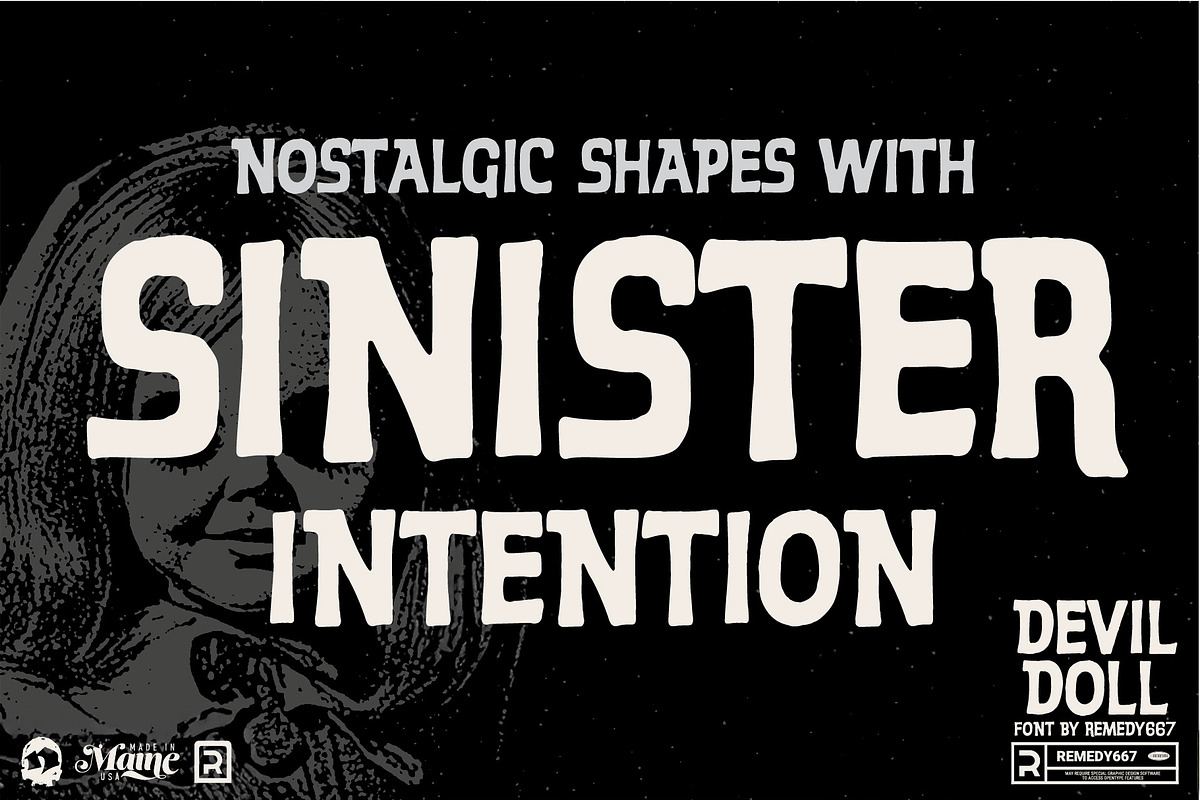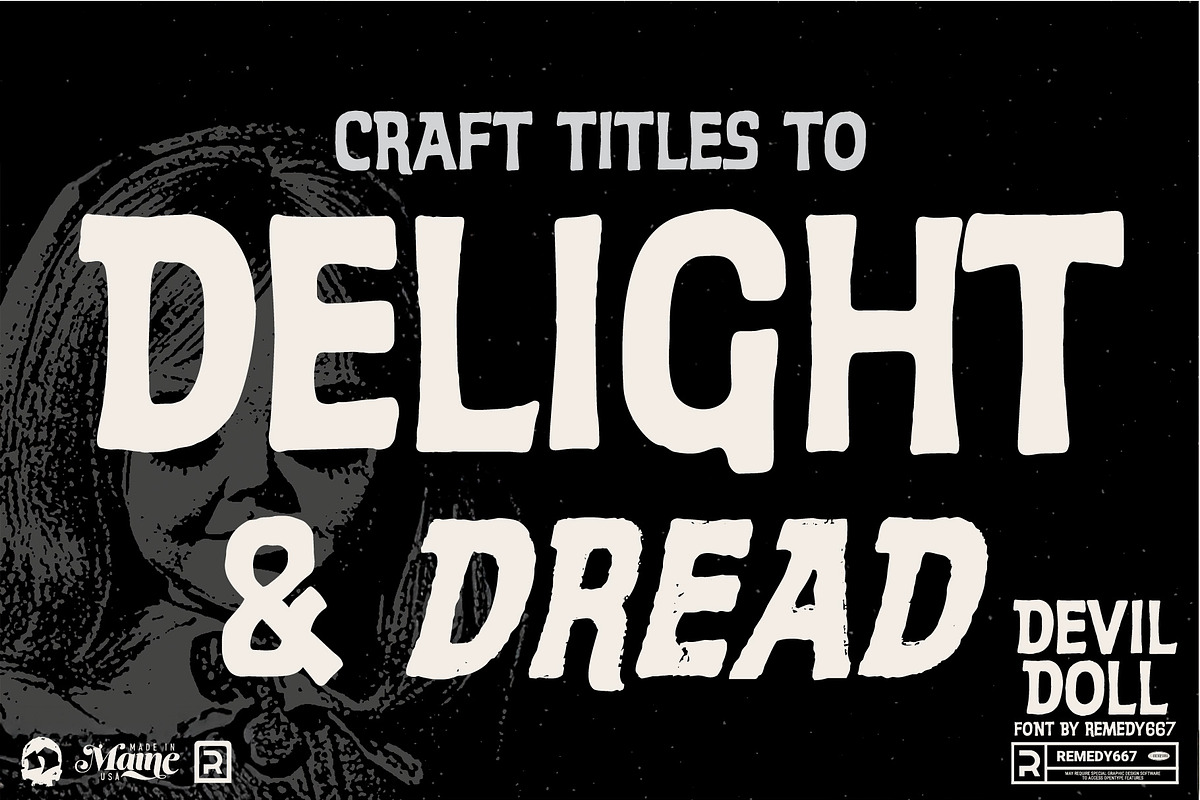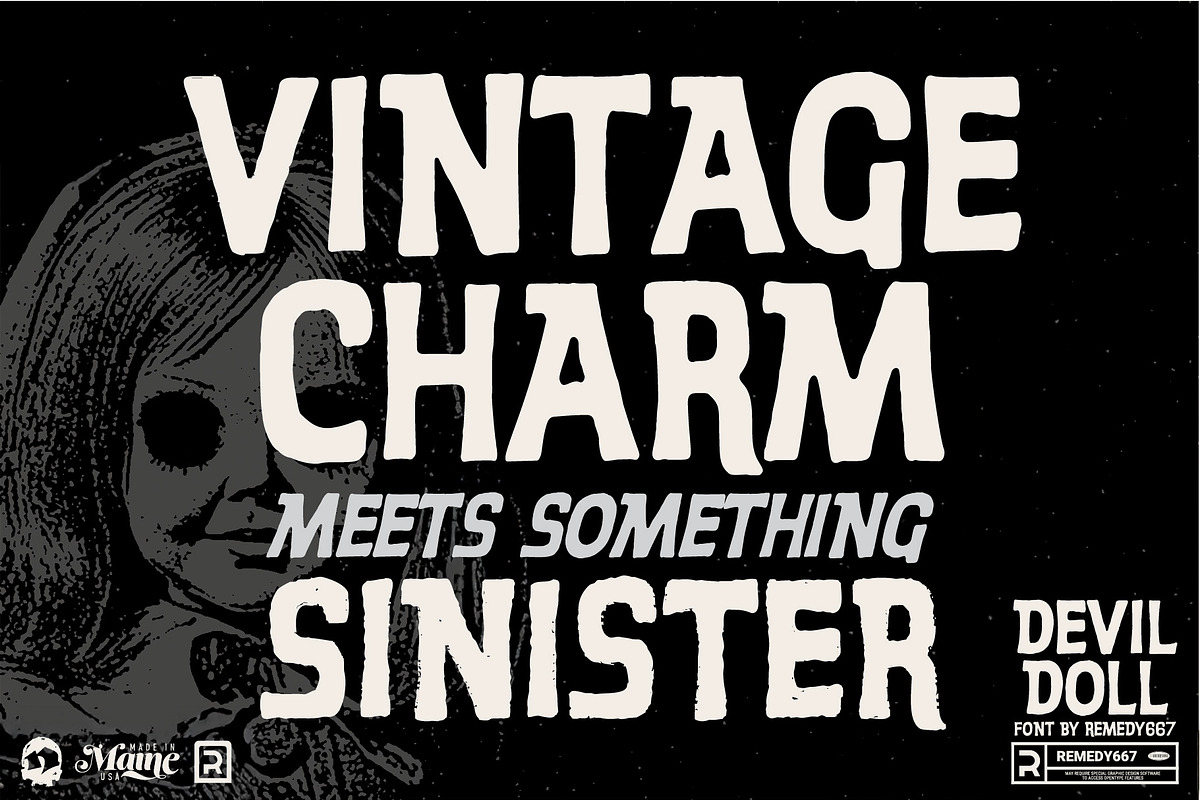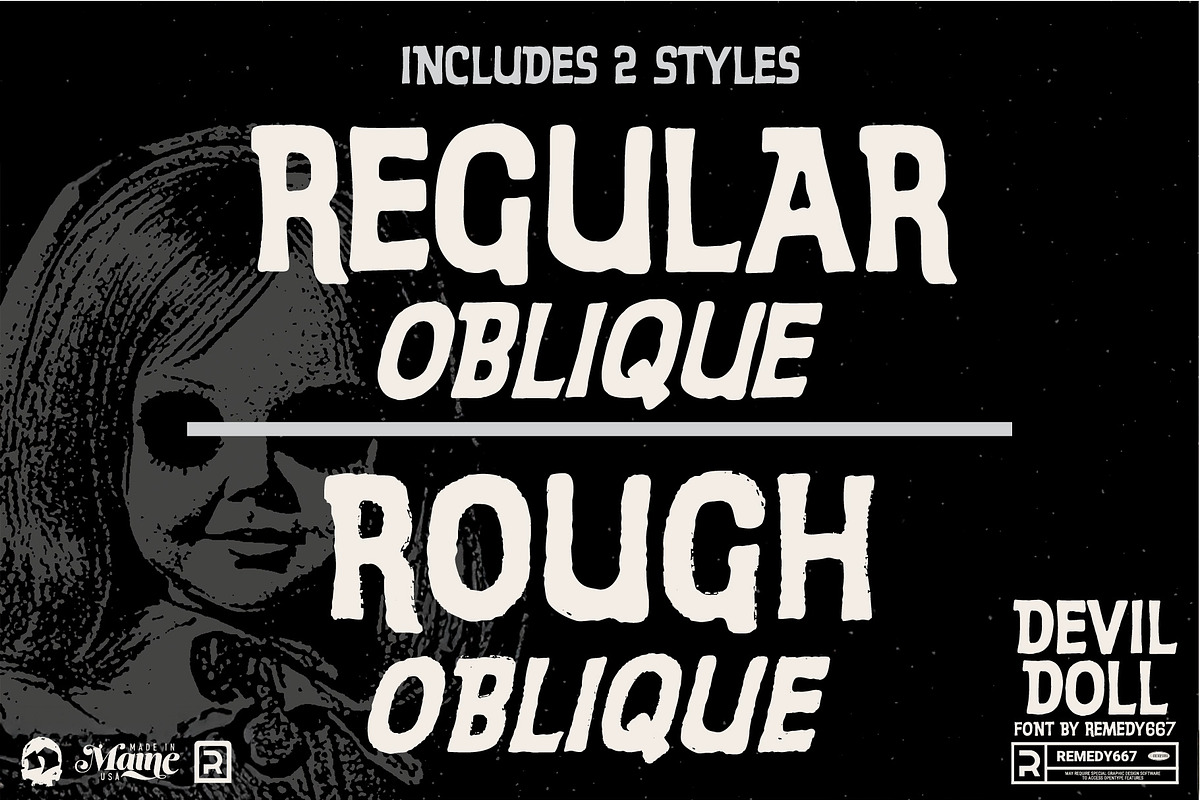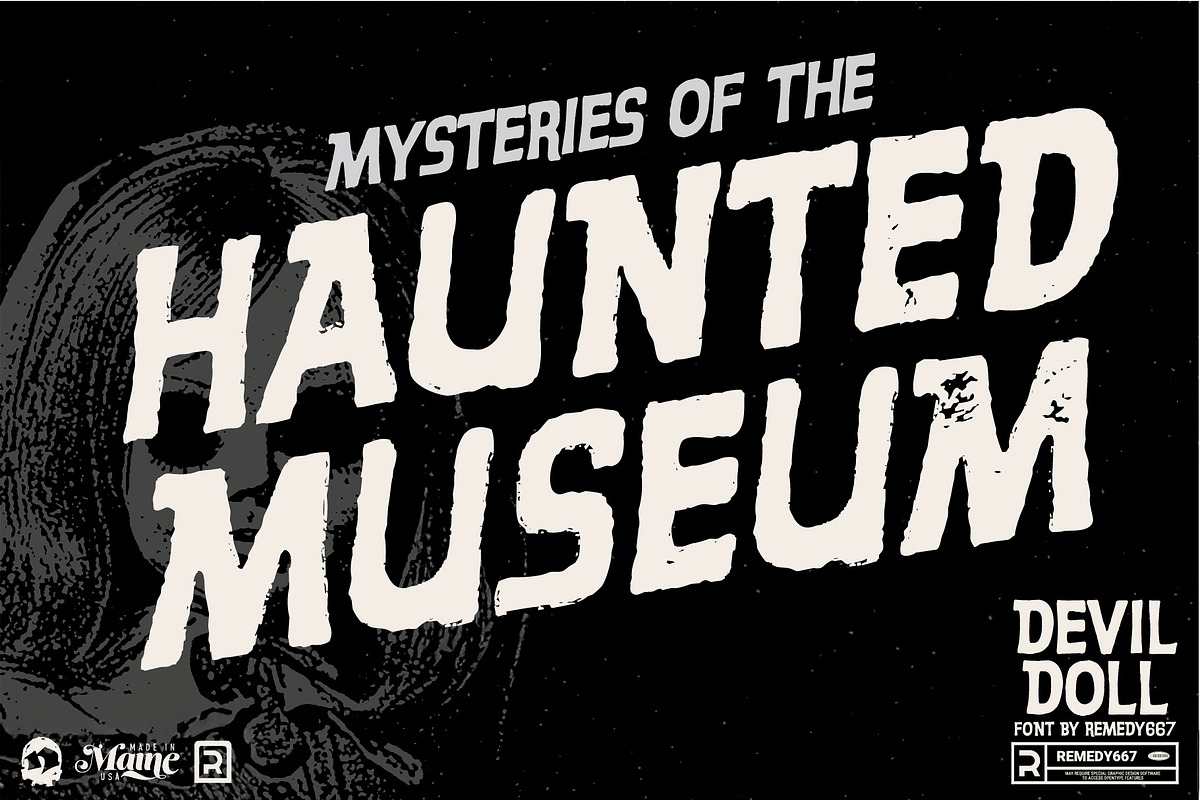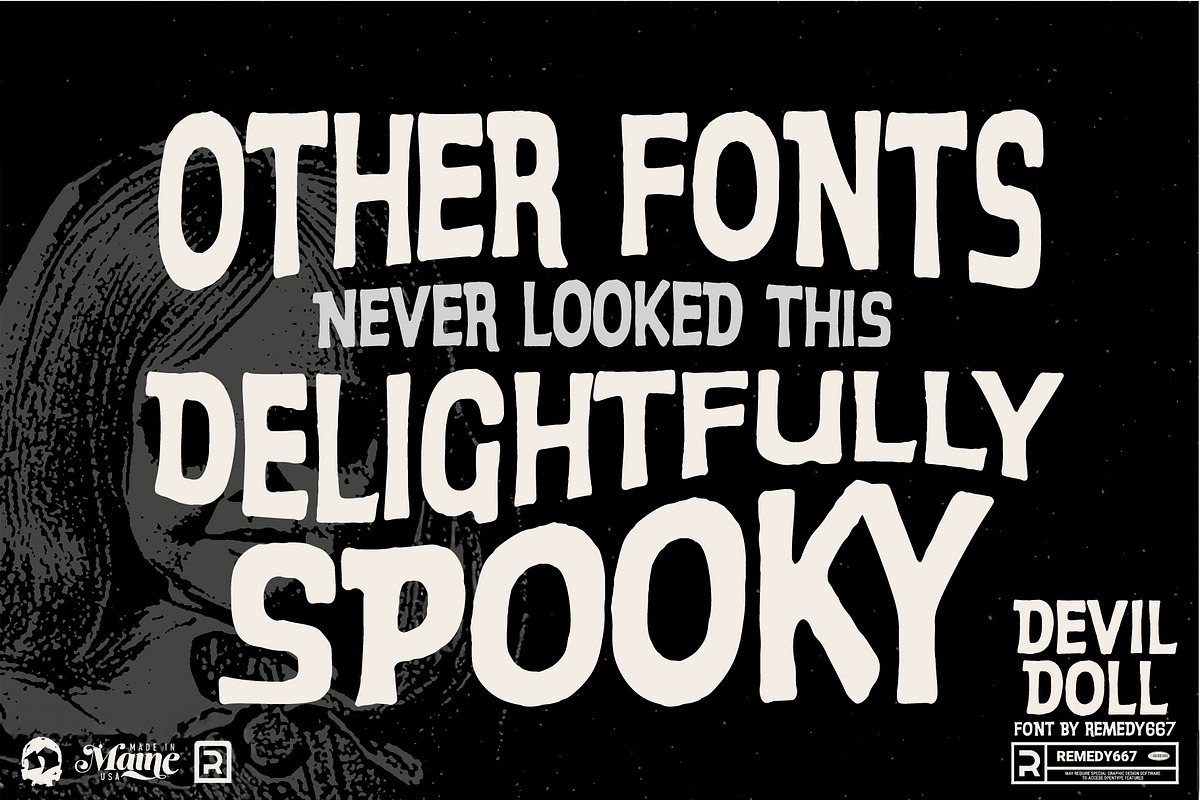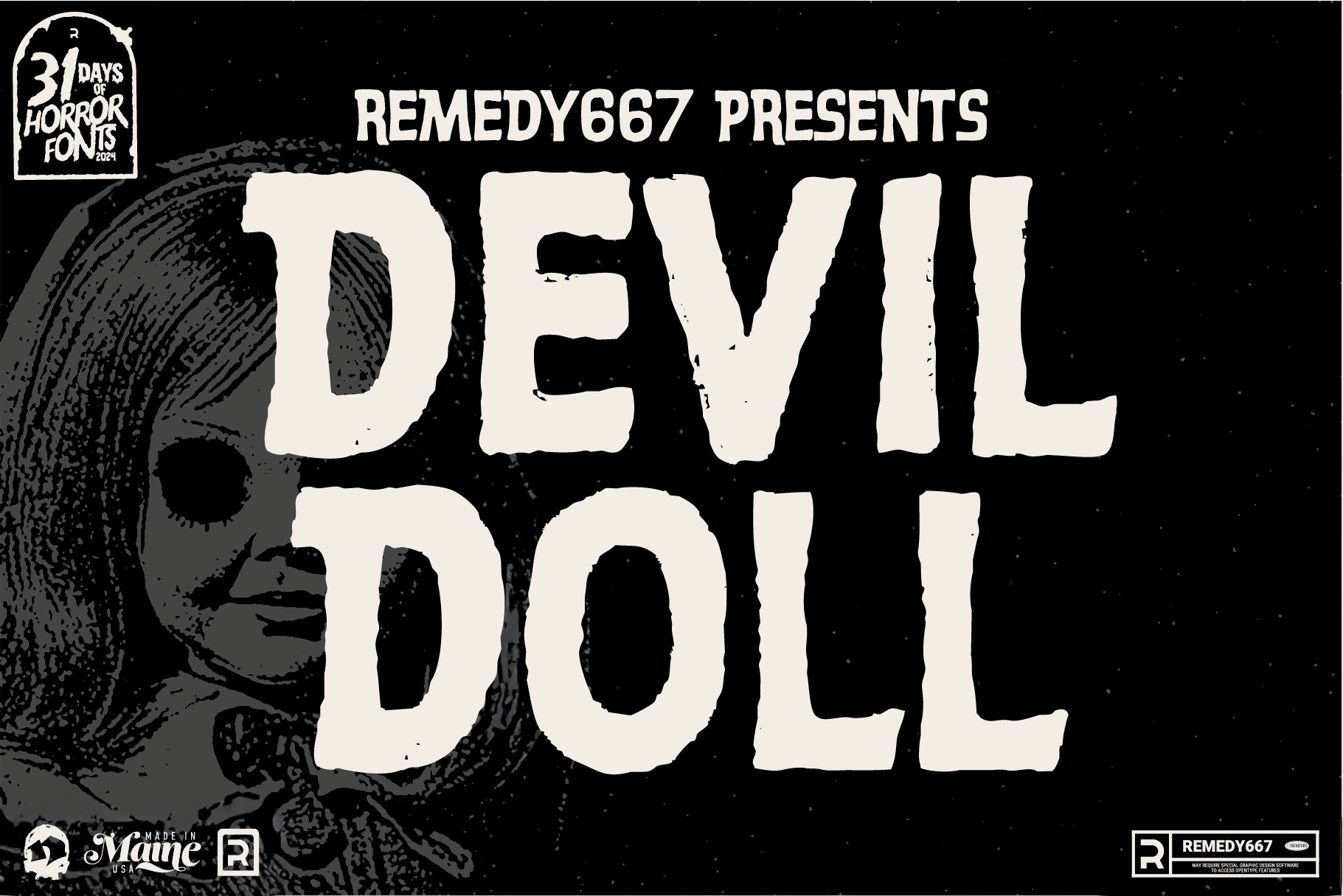
Devil Doll - Psychedelic Horror Font
Feast your mortal eyes on Devil Doll! Ripped straight from the eerie opening credits of the 1964 chiller that shares its name. Alive with midcentury style and hypnotic horror charm hanging somewhere between retro and psychedelic dread. Devil Doll is
Crafted for designers who dare to stand out, Devil Doll is a wickedly versatile display font perfect for posters, titles, and layouts. Whether you’re looking for classic horror vibes, retro dreamscapes, or even an ice cream party invite. Devil Doll performs like it’s got strings pulled by the devil himself!
Includes Rough and Oblique versions
Multilingual support for worldwide nightmares
Midcentury horror styling with psychedelic flair
Perfect for retro posters, titles, and vintage-inspired designs